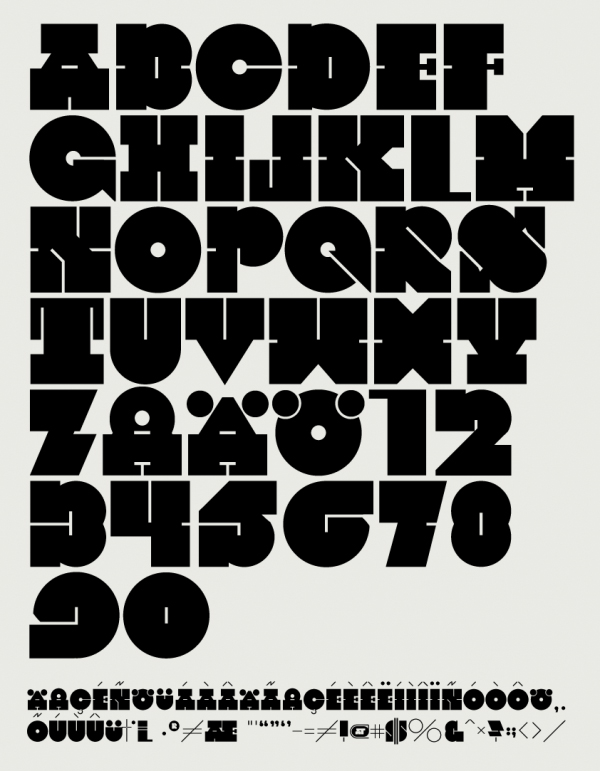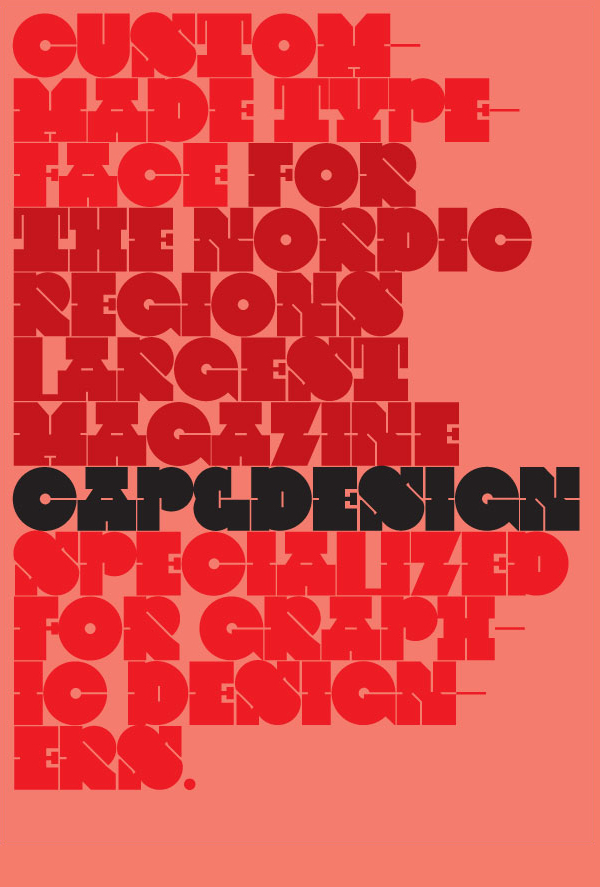
Capset is a wonderful typeface designed by Swedish design studio Suprb. Originally created for the Nordic publication Cap & Design this font not only looks pretty but also is highly developed and features a pro array of language support. Download Capset ›